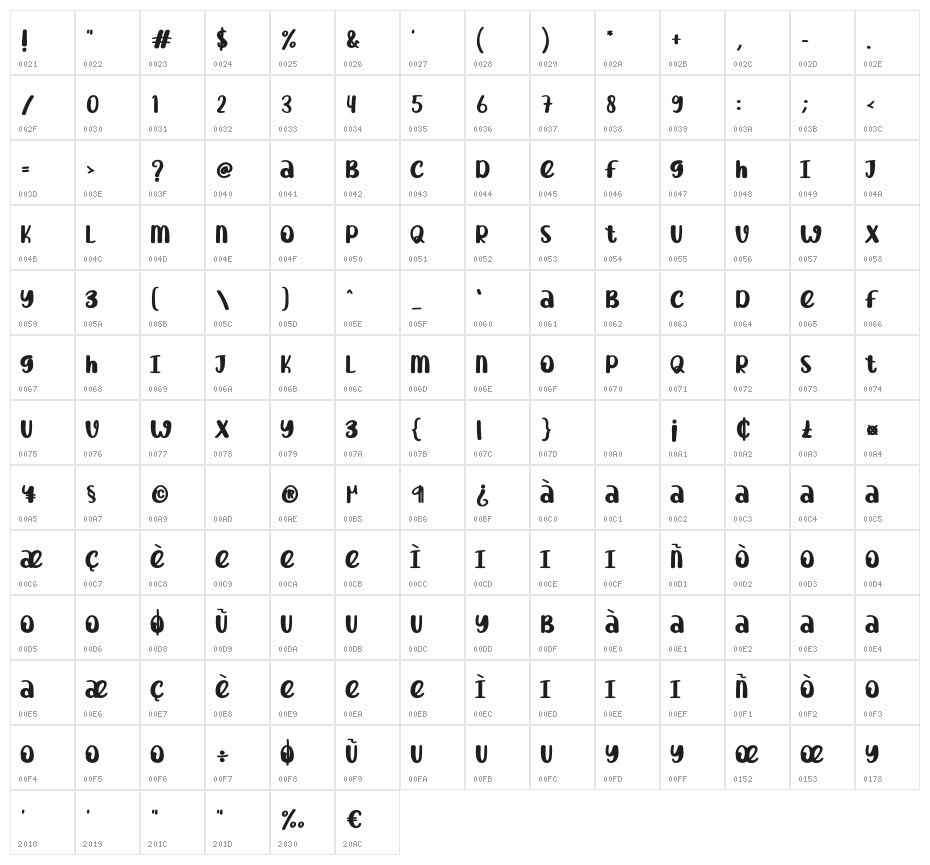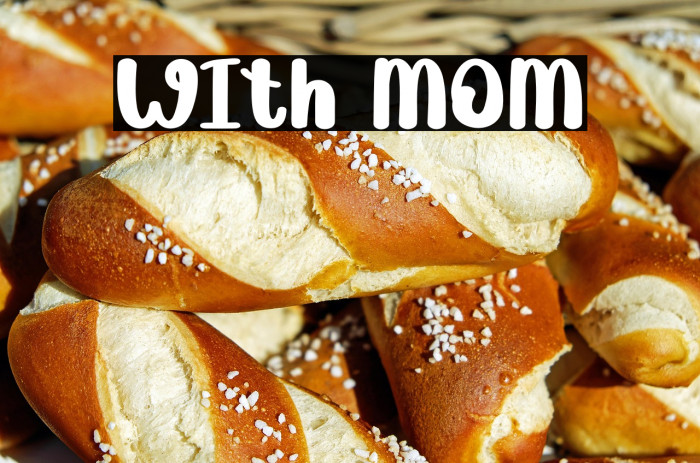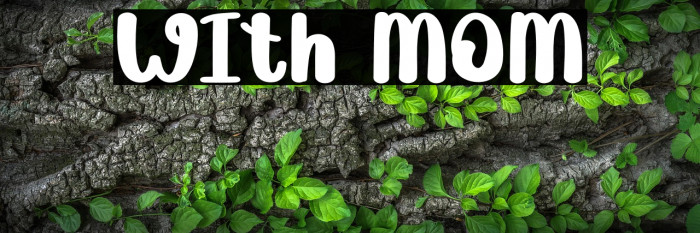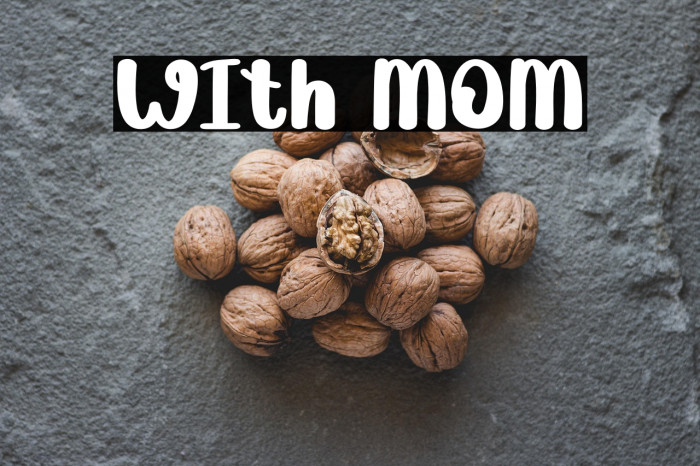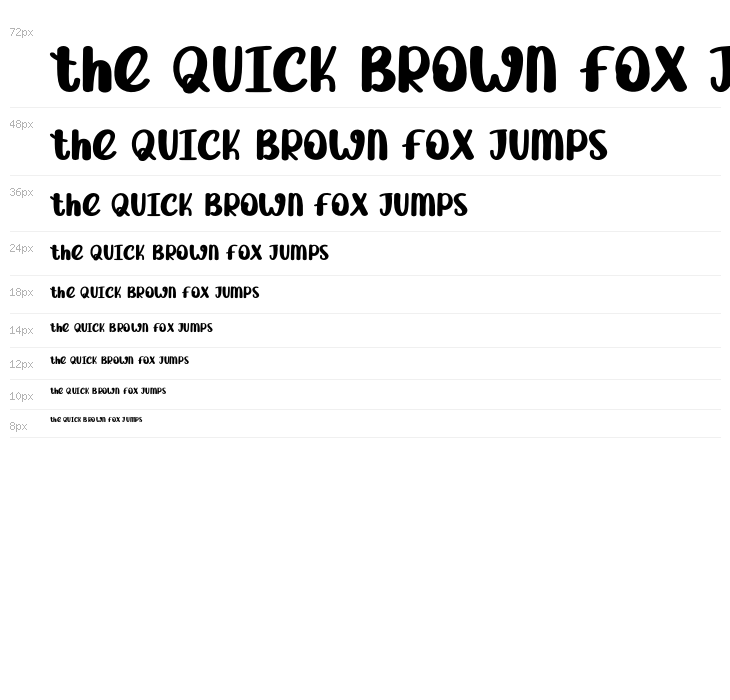
With Mom Font
With Mom Description
This font features a playful and rounded design, characterized by thick, bold strokes and a smooth, flowing style. The letters are evenly spaced with a consistent weight, giving it a cohesive and harmonious appearance. The rounded edges and lack of sharp angles contribute to its friendly and approachable feel. The numerals and special characters maintain the same playful aesthetic, making it versatile for various uses. Its bold presence ensures readability while adding a touch of whimsy to any project.
| Overall Style | Playful |
| Proposed Projects | Ideal for children's books, playful branding, casual invitations, and creative posters. |